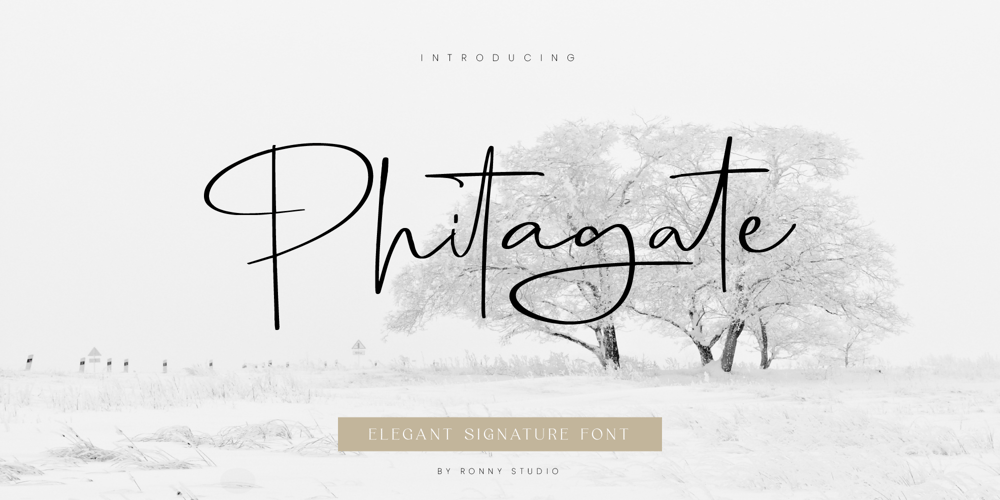
Phitagate Font Family was designed by Rony Rizki Jaya and published by Ronny Studio. Phitagate contains 3 styles and family package options. Phitagate is a signature script font with beautiful strokes. This font is impressive and features a clean and elegant font, professionally shaped, and as a result, it will easily match a variety of creations that require a different touch. Add it with confidence to your projects, and you’ll love the results. This typeface is perfect for elegant logos, branding, promotions, layout magazines, beauty products, business cards, weddings, quotes, or simply as a stylish text overlay onto any background image.2 Style Font :- Regular – Italic Phitagate Features :- Uppercase- Lowercase- Numbers & Punctuation- Alternates- Ligatures- Swashes- Multilingual Support- Simple installationAll of features and special characters of this font are included in one file. So it is easy to accessed by using program or software that support the opentype like Adobe Illustrator, Adobe Photosop, and Adobe Indesign). This font also very easy to use because compatible for all software even for non-opentype supported.Please comment us if you have any questionsThank you and have a nice day.thank you